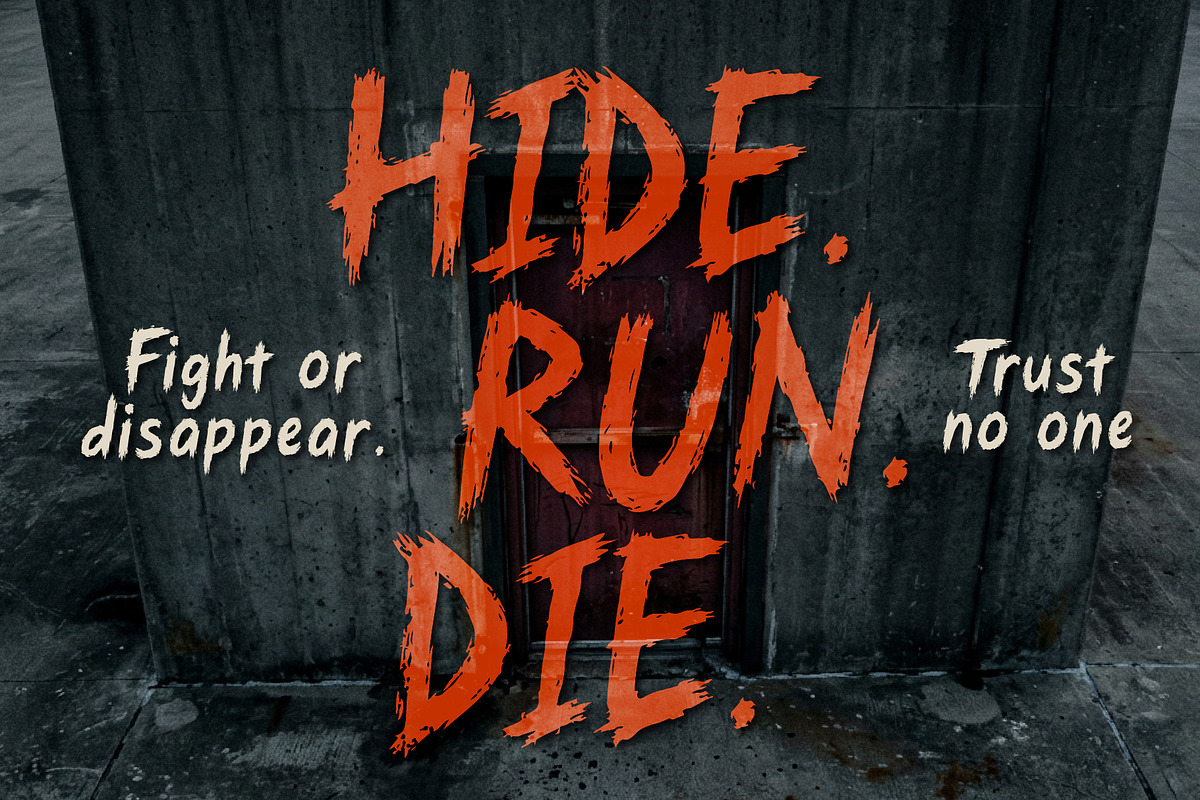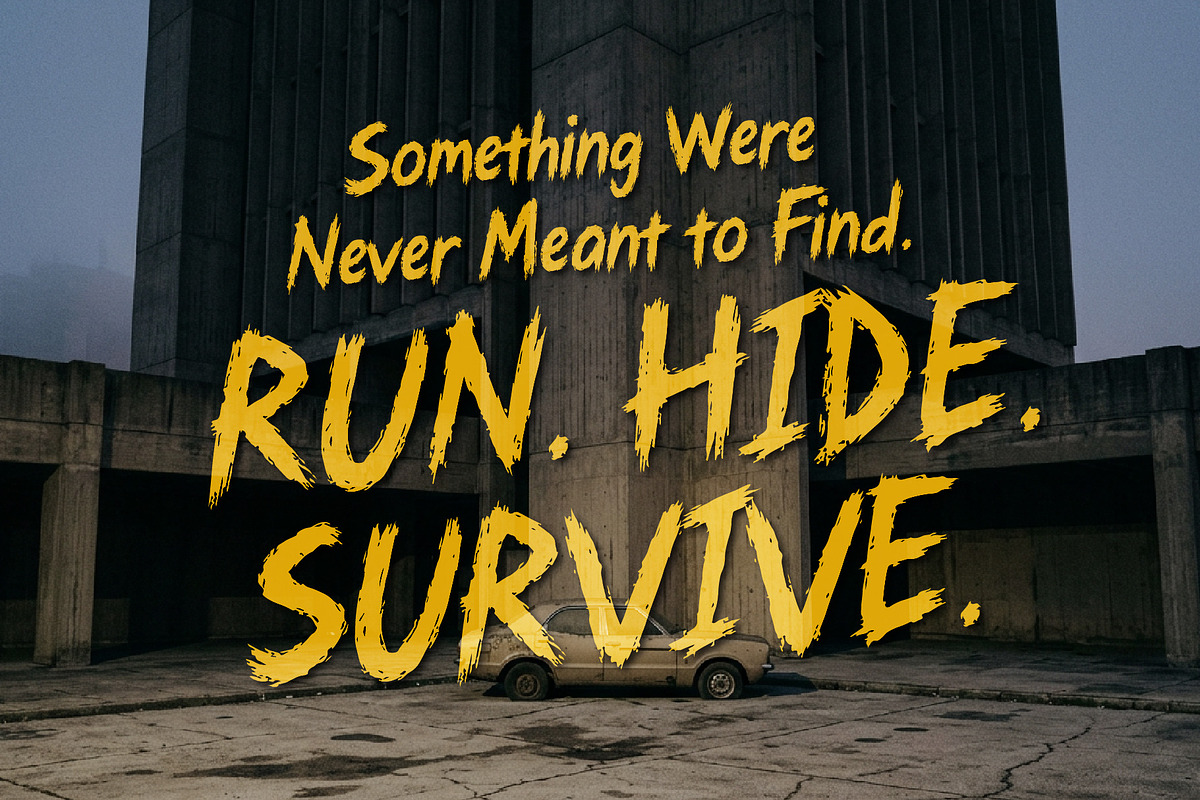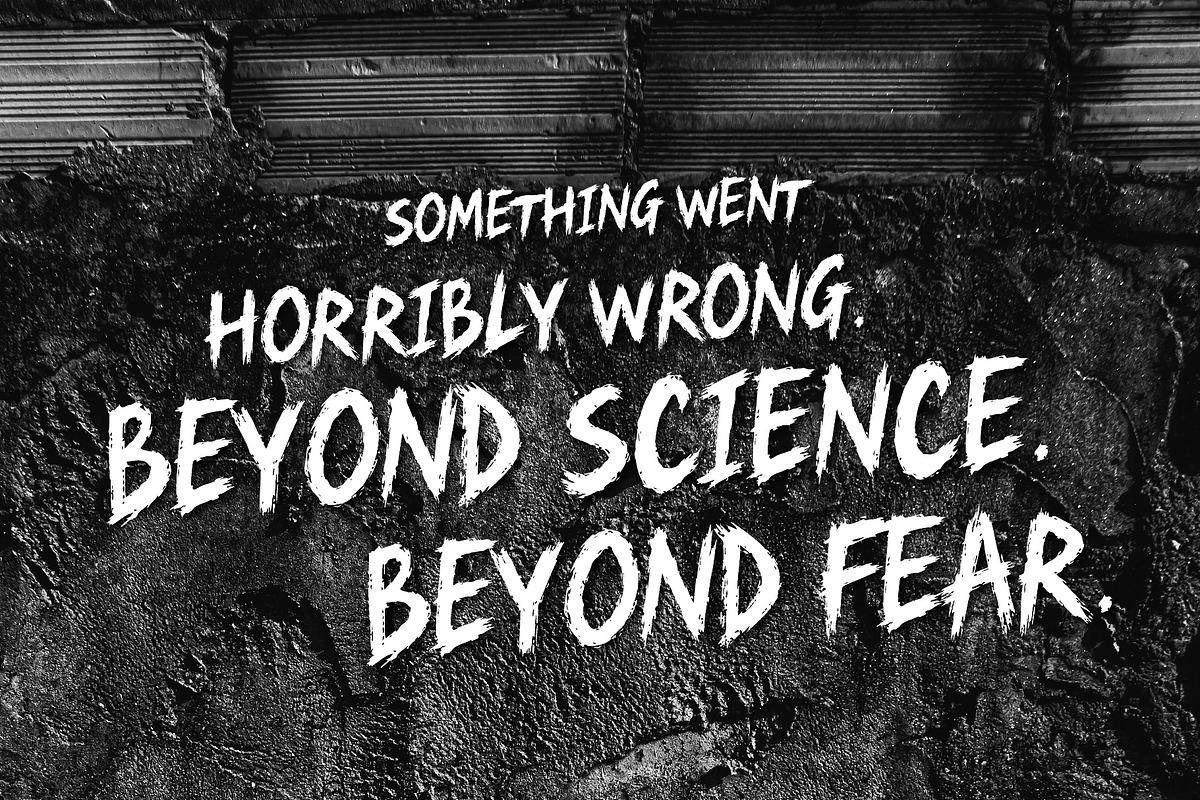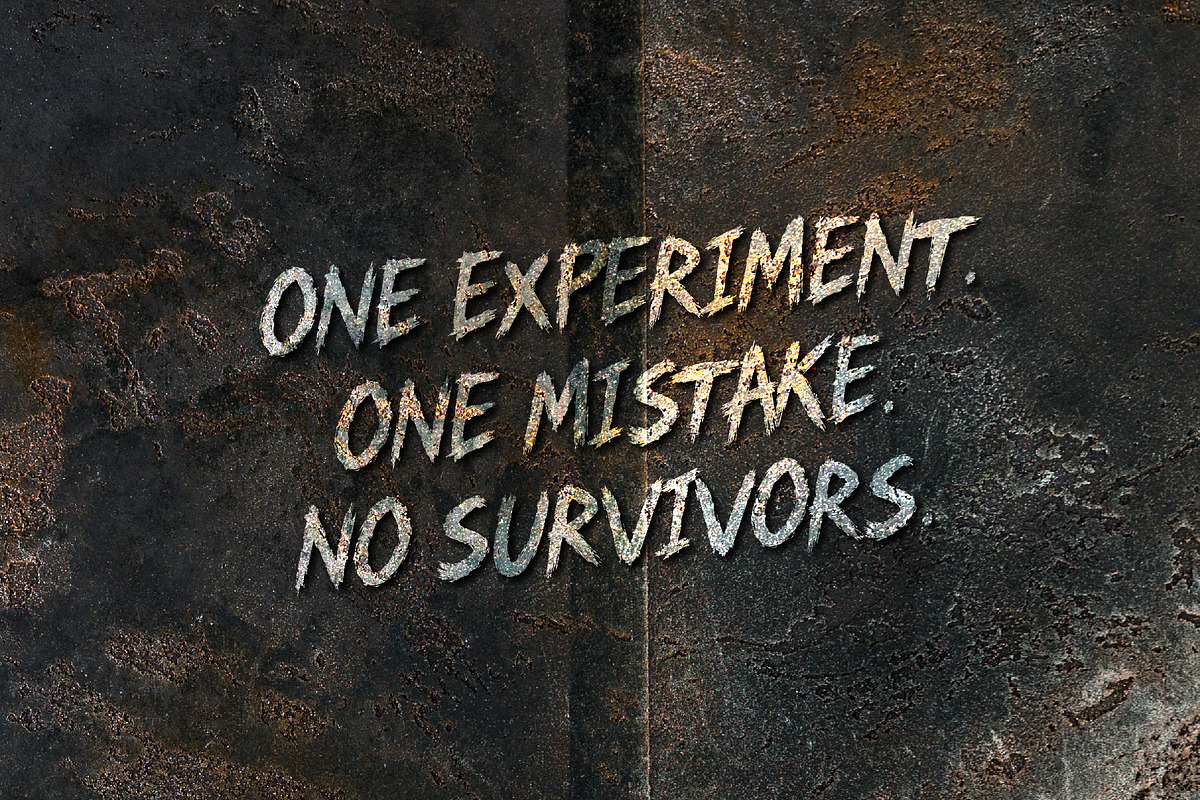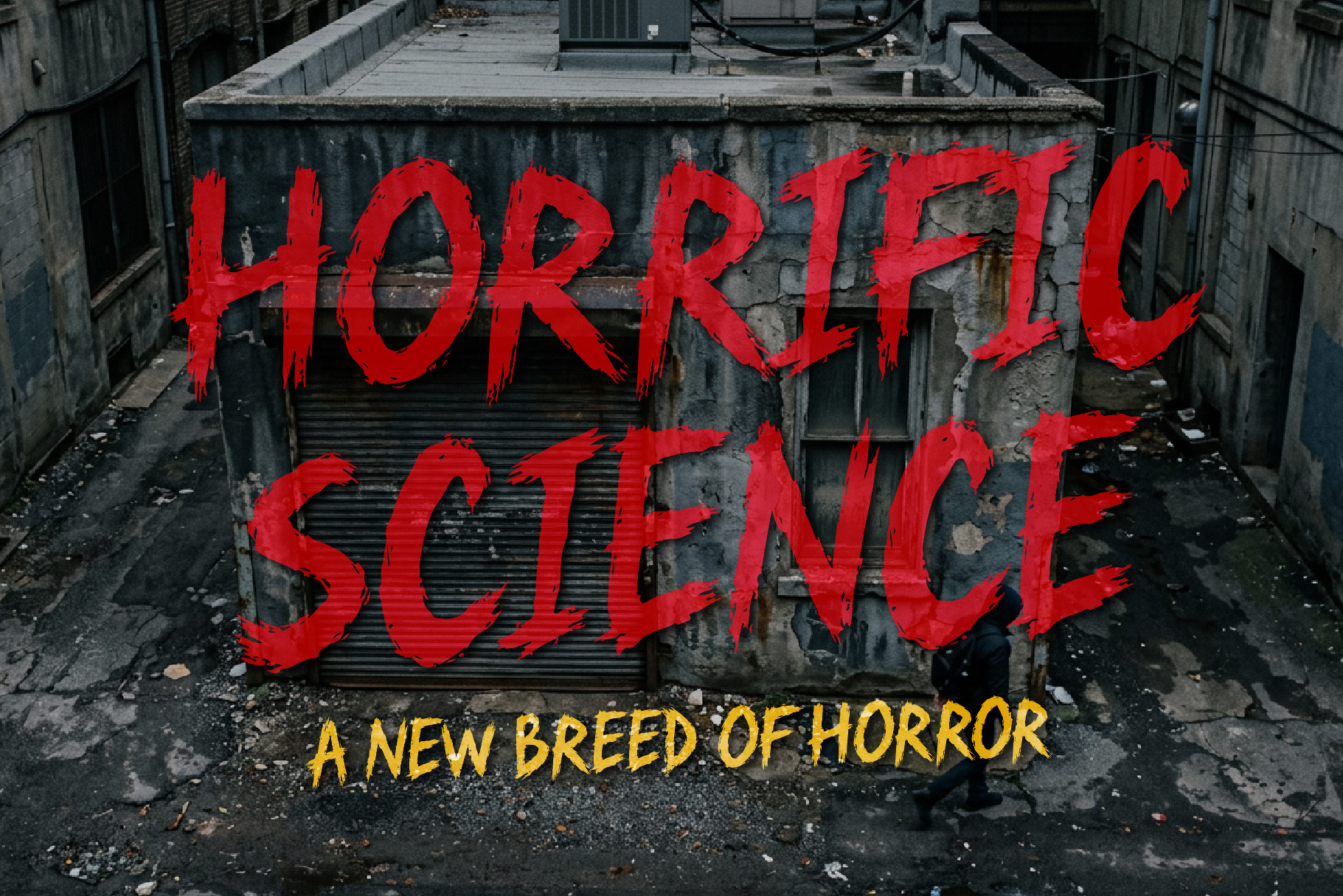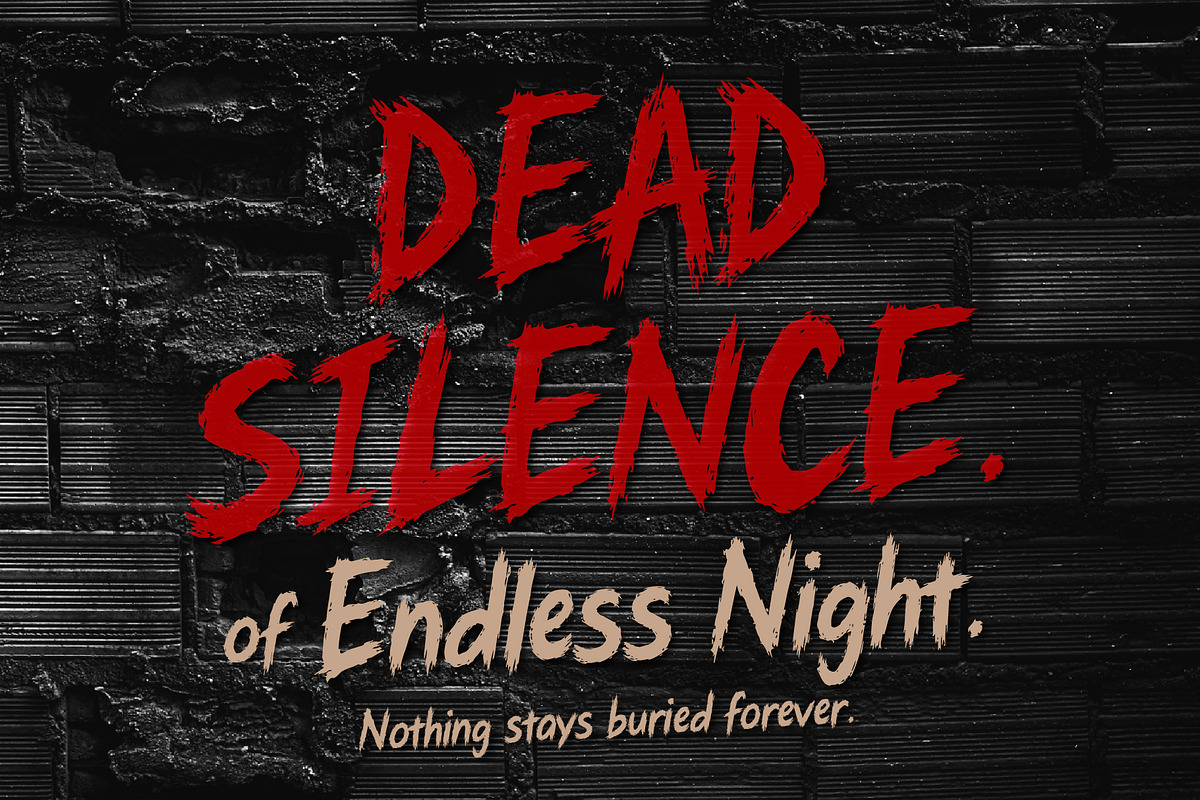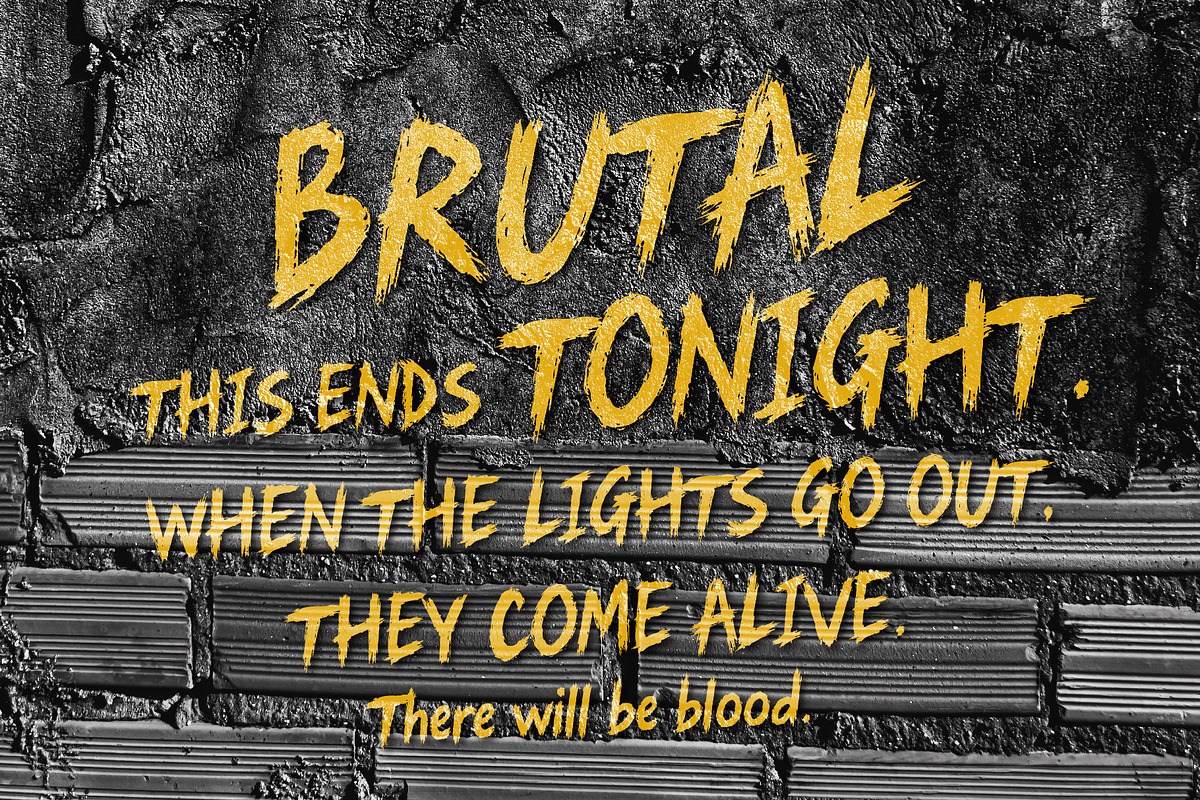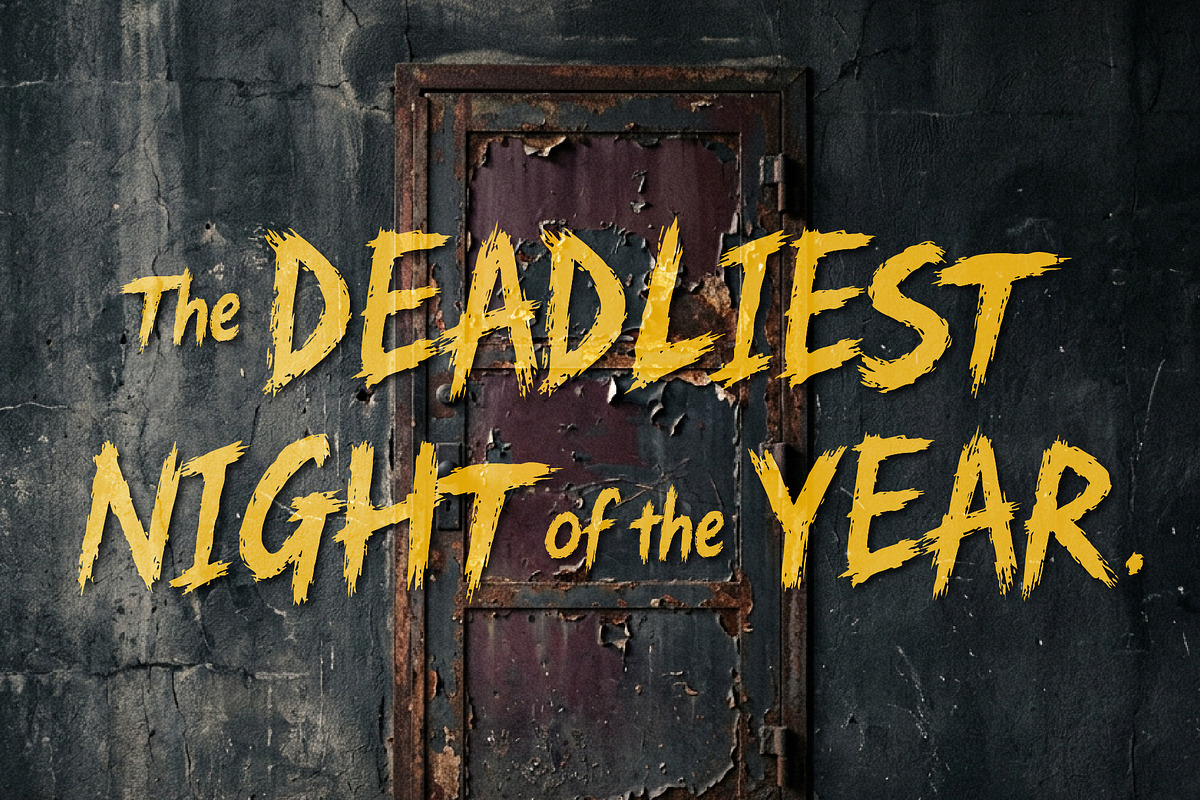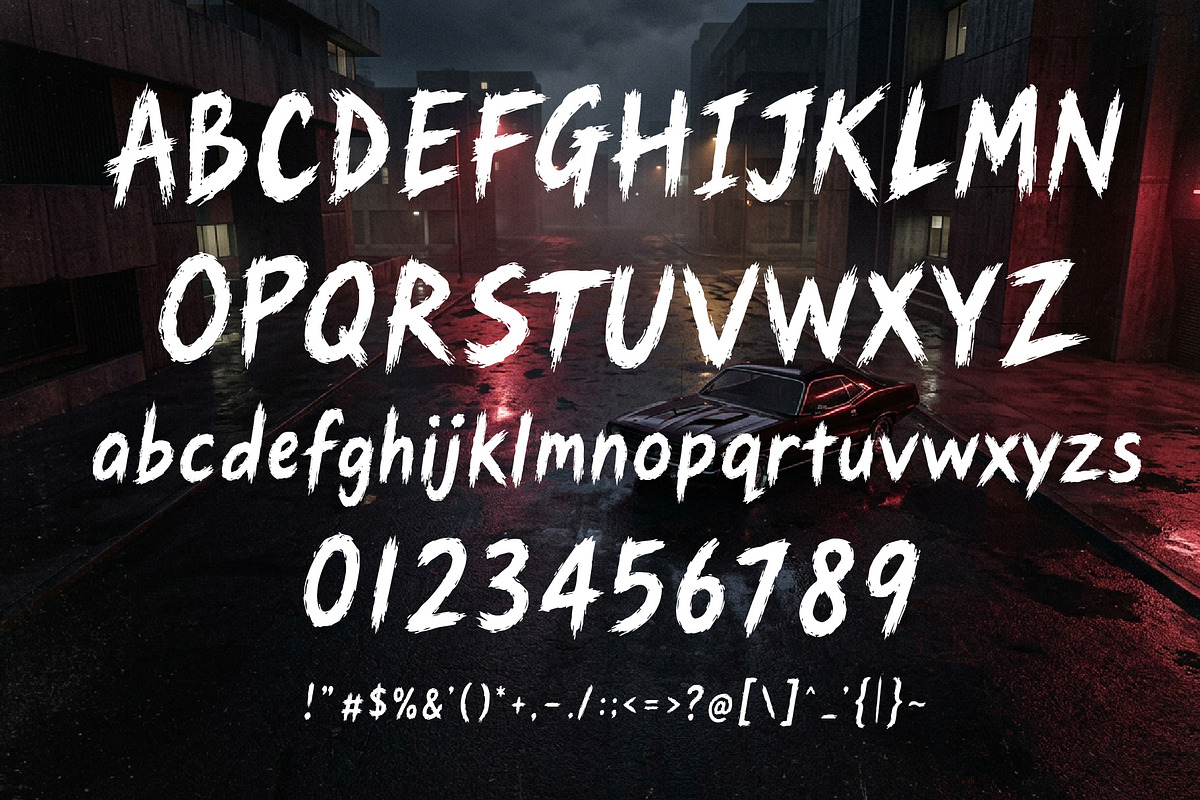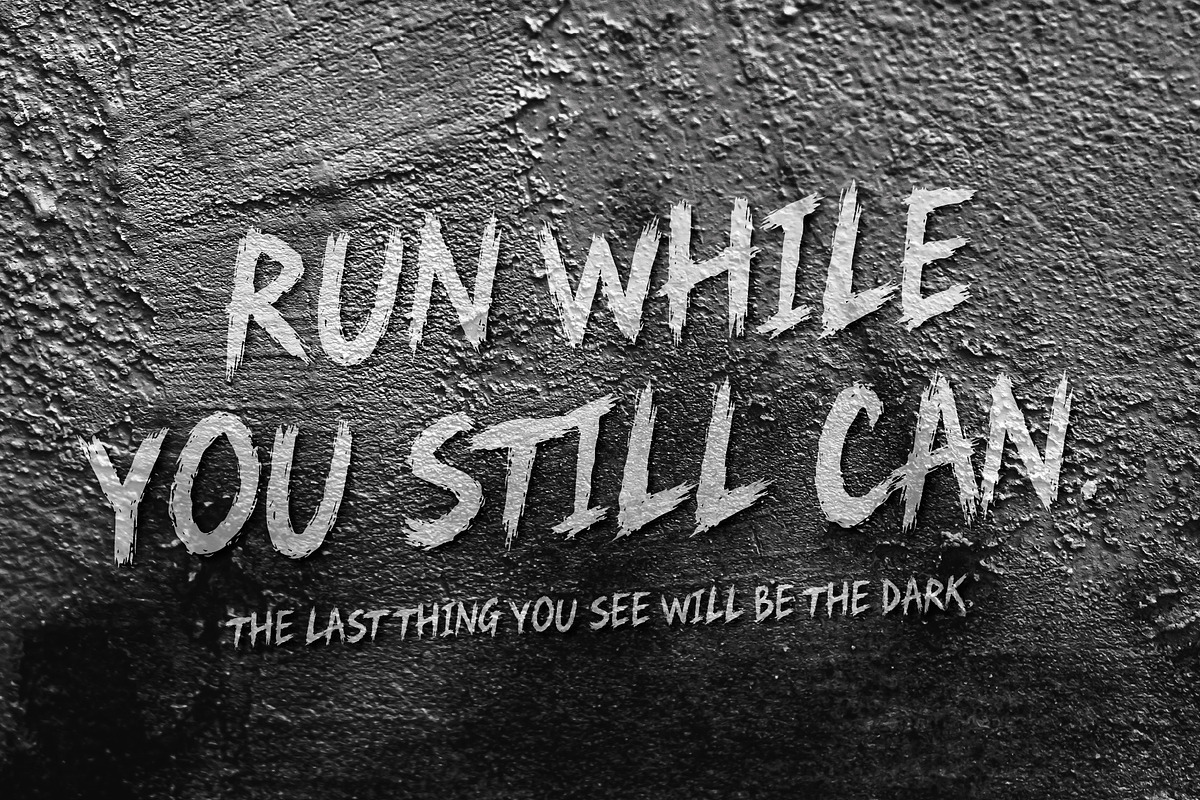
HorrificScience Horror Thriller Font
Horrific Science a bold grunge display font built for horror, thriller, sci-fi, and action-driven visuals.
Distressed, aggressive, and cinematic, Horrific Science combines a raw horror aesthetic with the energy of vintage exploitation movie posters, underground thriller artwork, laboratory warnings, and apocalyptic action graphics.
Perfect for movie titles, horror posters, thriller campaigns, book covers, album artwork, game titles, merchandise, event graphics, logos, and dark editorial designs.
Make your typography feel dangerous, mysterious, experimental, and unforgettable with Horrific Science.